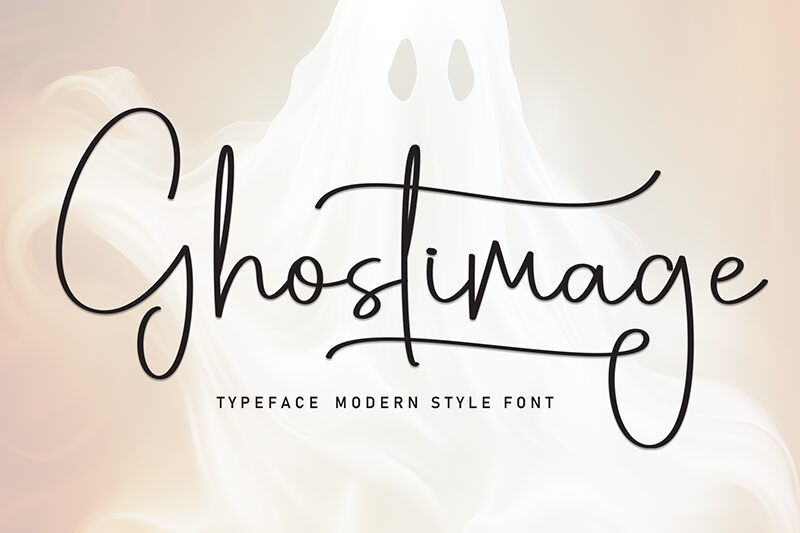
Náhled písma Ghostimage
Ghostimage font is a handwritten typeface designed by Scratchones with a signature style and natural elegance. This light font mimics the authentic look of handwriting with its high-contrast strokes, casual ascenders/descenders, and realistic slant. Each character combines nicely with the next for an eye-catching display that can elevate your design projects.